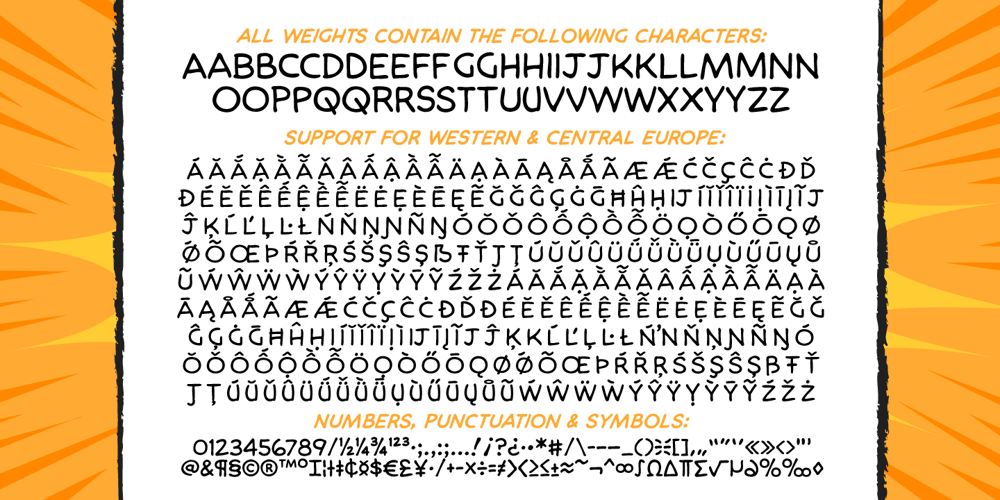
Brian Bolland Font Family was designed by John Roshell, Brian Bolland and published by Comicraft. Brian Bolland contains 5 styles and family package options. Butterwick-Born Brian Bolland led the British Blitz on DC Comics and besides his brush with BATMAN and GREEN LANTERN, he was bound to be branded as a Superman buff basically because he was baptized BOLLAND, and even the least stalwart SUPERMAN supporters are bound to bring up their basic belief… that the letters LL are legendary in Superman lore! Lex Luthor! Lana Lang! Lois Lane! Brian Bolland!Strange then that Bolland is best known in Blighty as one of the definitive JUDGE DREDD artists for the long running comics anthology 2000 AD. The more earnest and eagle eyed amongst our esteemed essayers will be eager to enjoin the essential evidence of the absence of application for alliterative allusion in the assignation of Mega City One’s finest and our British artist of note. As far as we know there is no connection between the double D in DREDD and the B in Bolland’s WONDER WOMAN covers. We don’t even know the details of Diana Prince’s bra size.